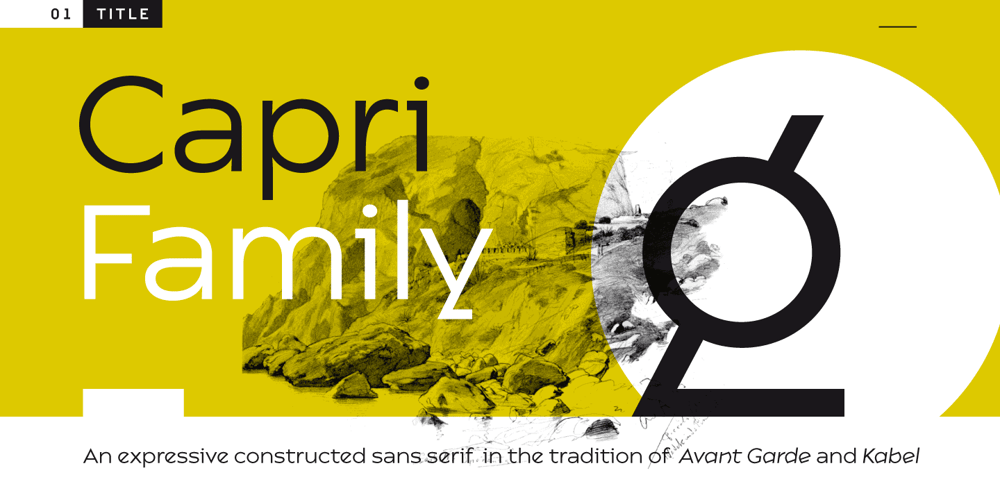
Capri Pro
Capri Pro font
Capri Pro Font Family was designed by Felix Braden and published by Floodfonts. Capri Pro contains 4 styles and family package options. Capri is an expressive constructed sans serif typeface in the tradition of Kabel and Avant Garde. The proportions of the letters and the overall impression are modern and contemporary but also retain the crude charme of the constructivist concept. The design is based on basic forms as square, circle and triangle and was developed by drawing not writing. The dominant diagonal forms and the vertically cut endings of the curved strokes give the font its sharp-edged look and its puristic elegance.